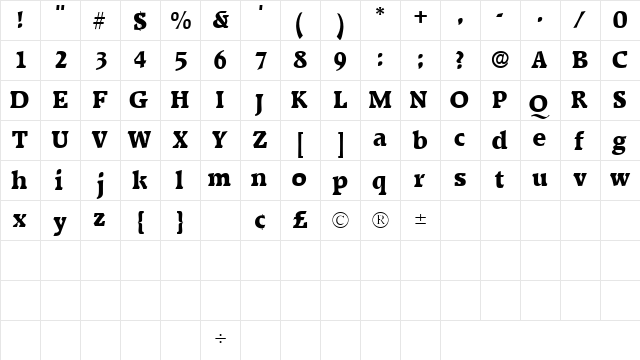
KaroaSSK Regular
Design Context for KaroaSSK Typeface
KaroaSSK offers clean, dependable letterforms without strong stylistic allegiance, making it a practical choice for designers who need flexibility.
Pro Tip: Use KaroaSSK in both headline and body roles to test its range before committing to a single application.